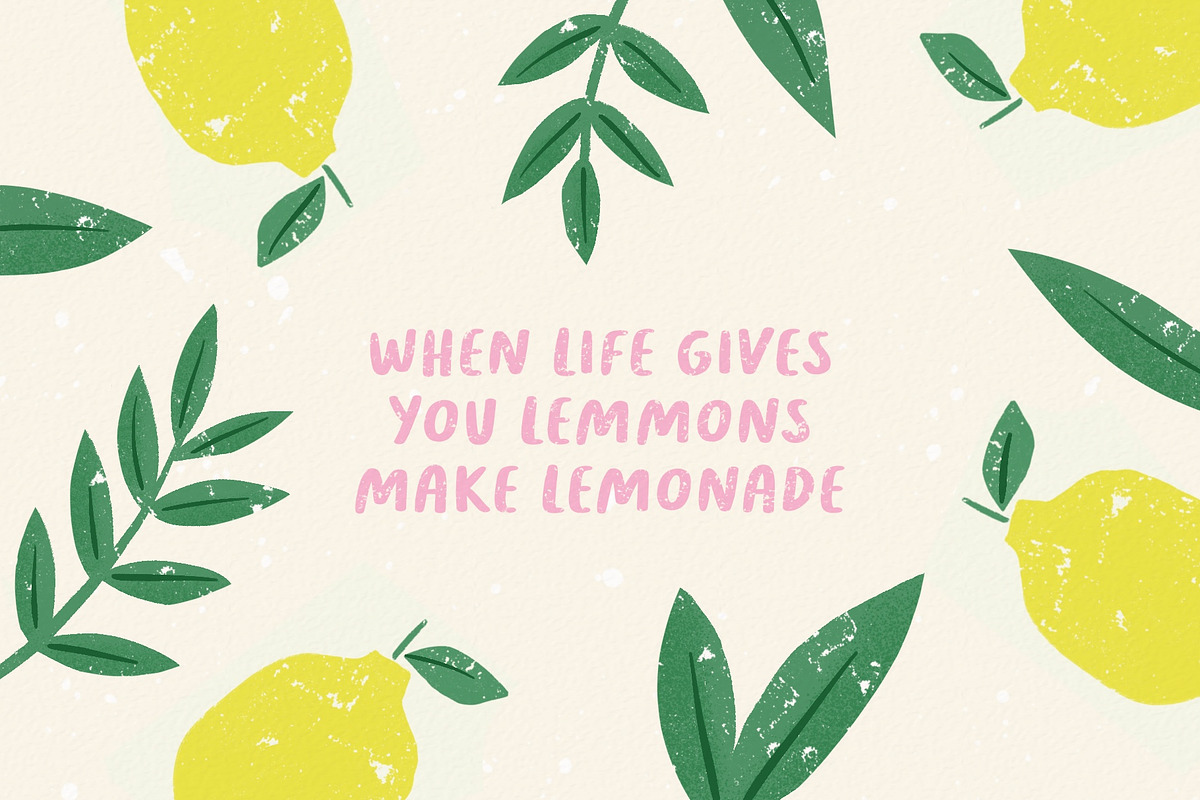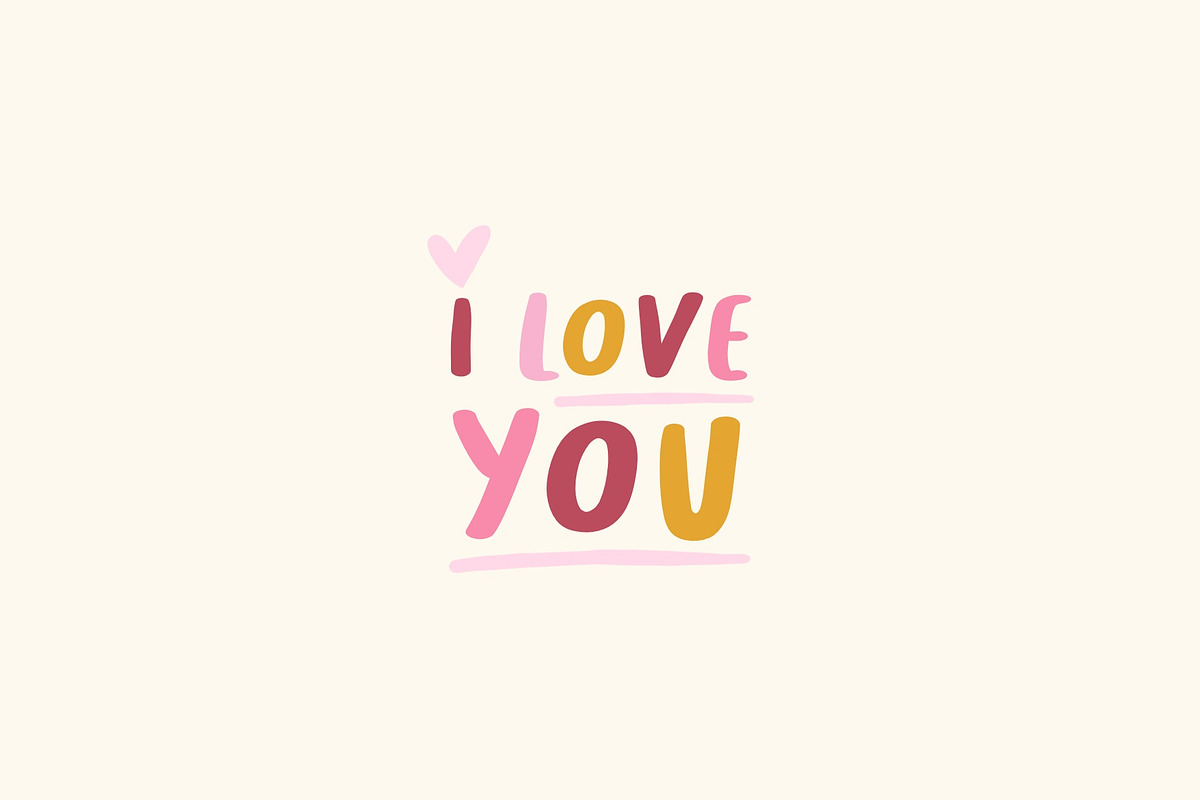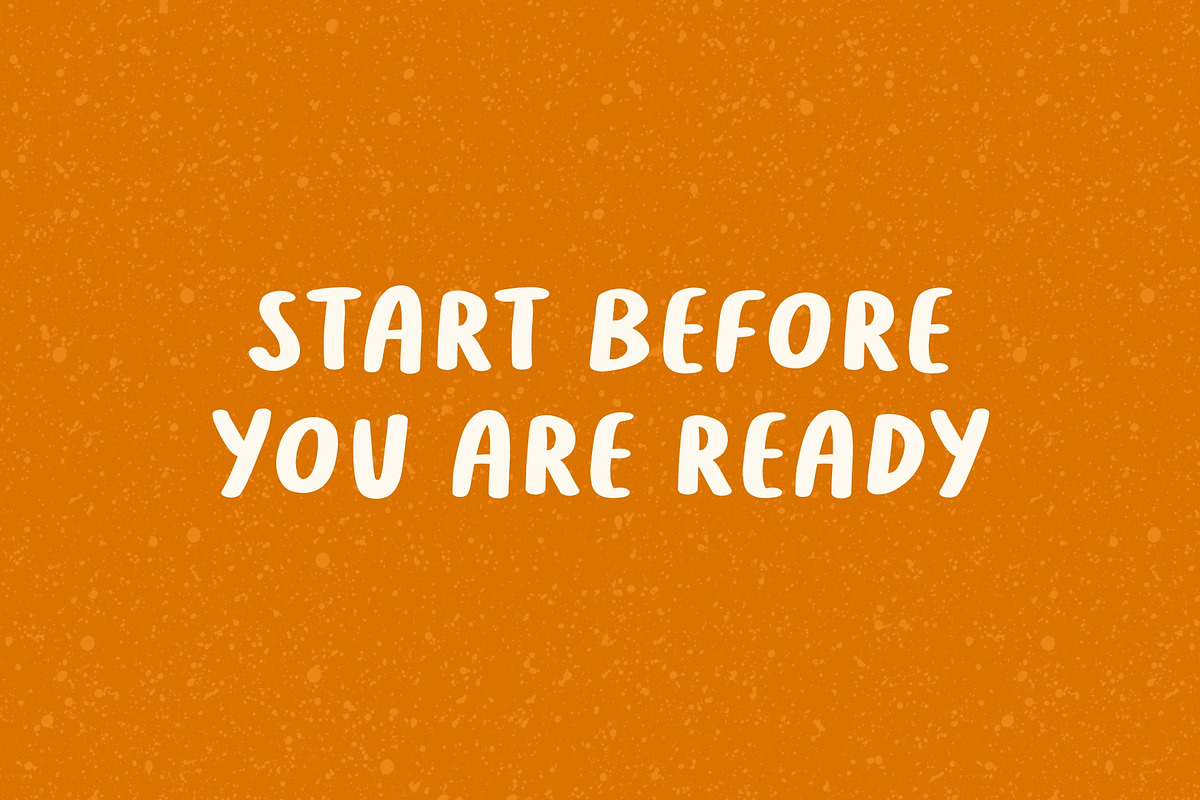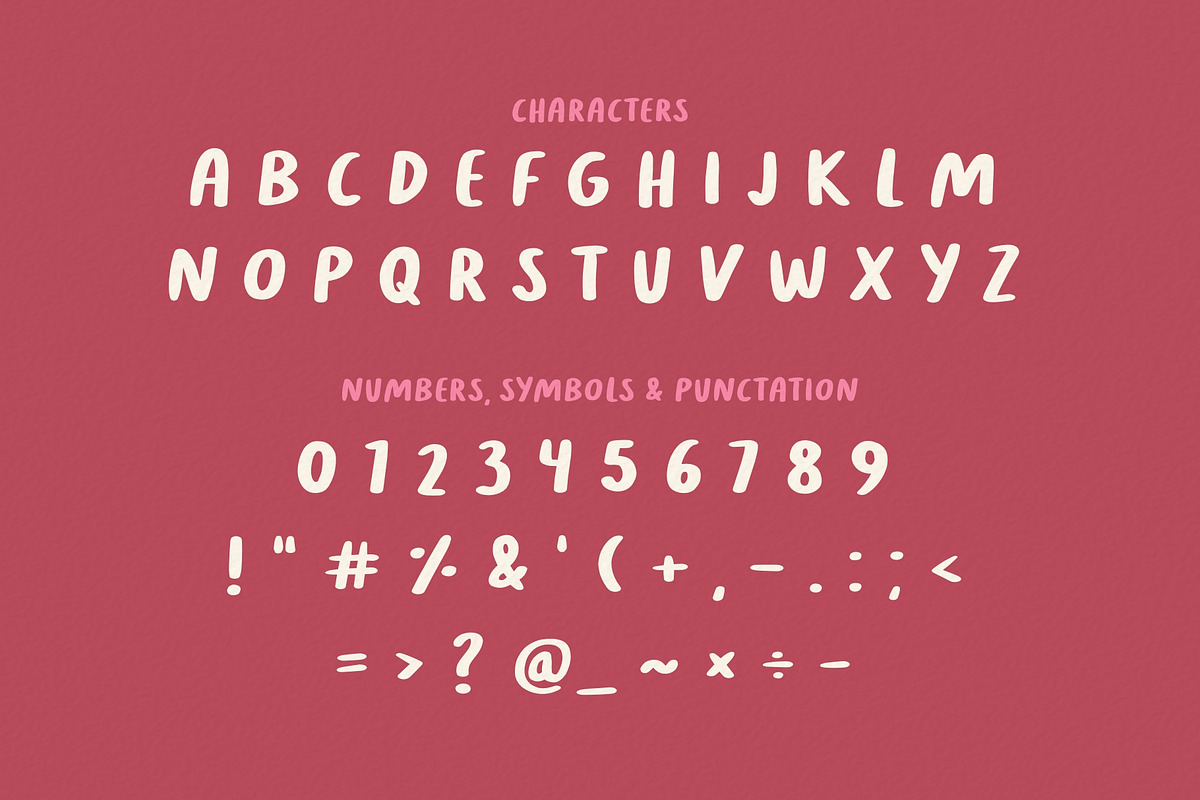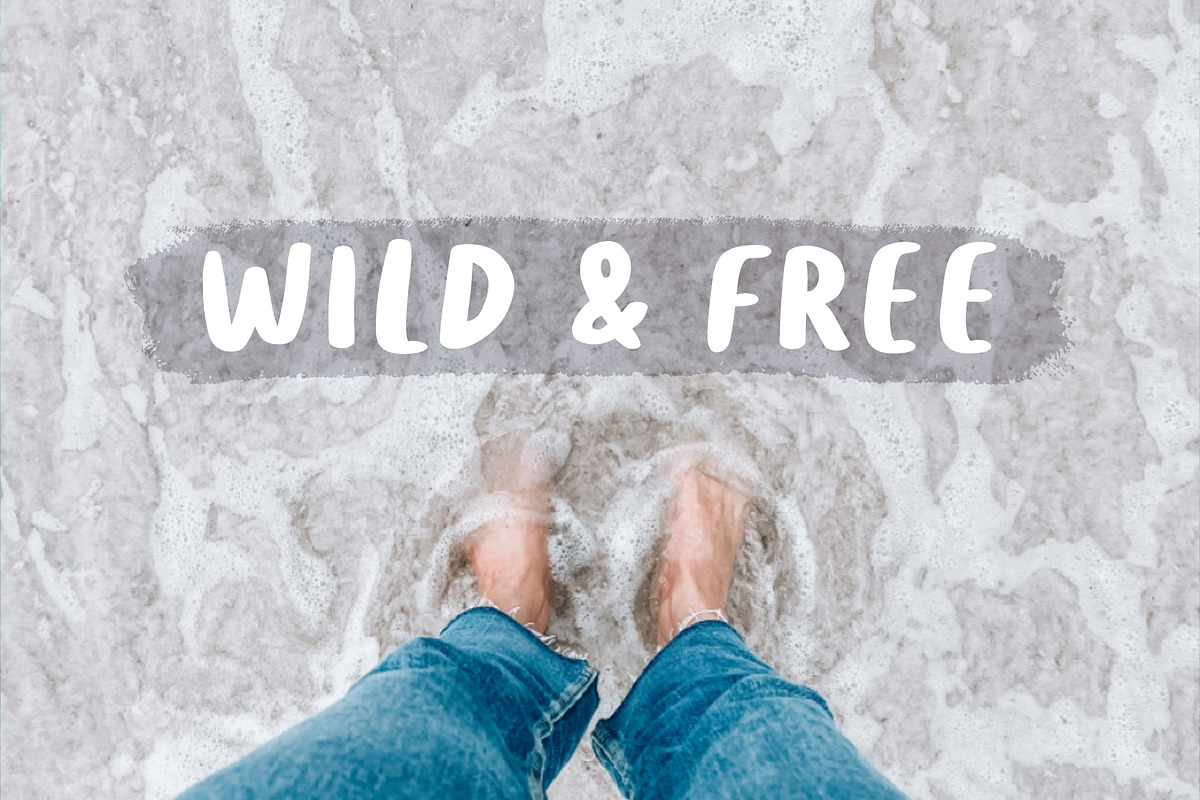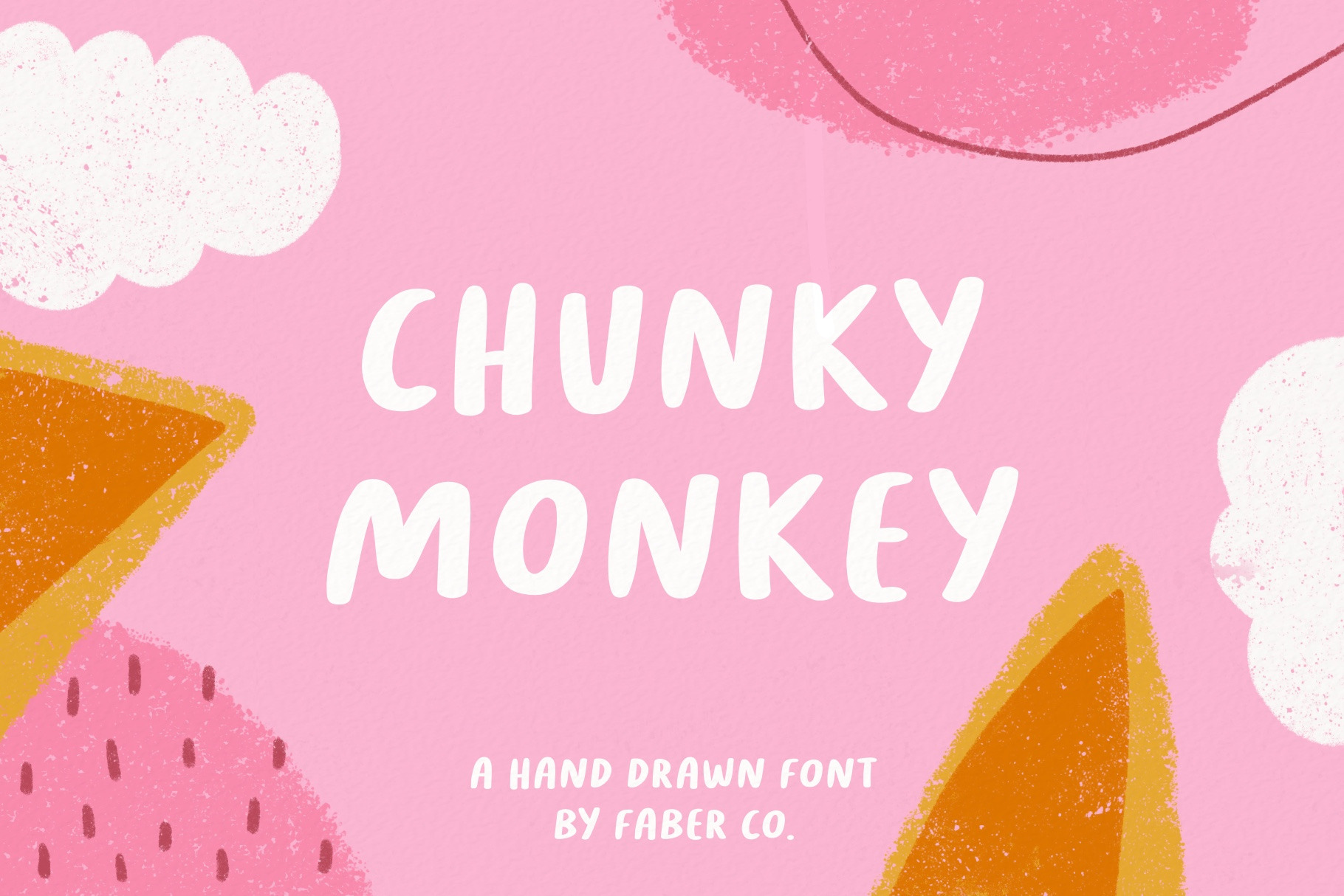
Chunky Monkey | Handwritten Font
CHUNKY MONKEY is a fun and bold font in a hand drawn style. It’s perfect to add a personal and playful touch to your illustrations, greeting cards, packaging, quotes and much more.
This is an all-caps font with characters, punctation and symbols.